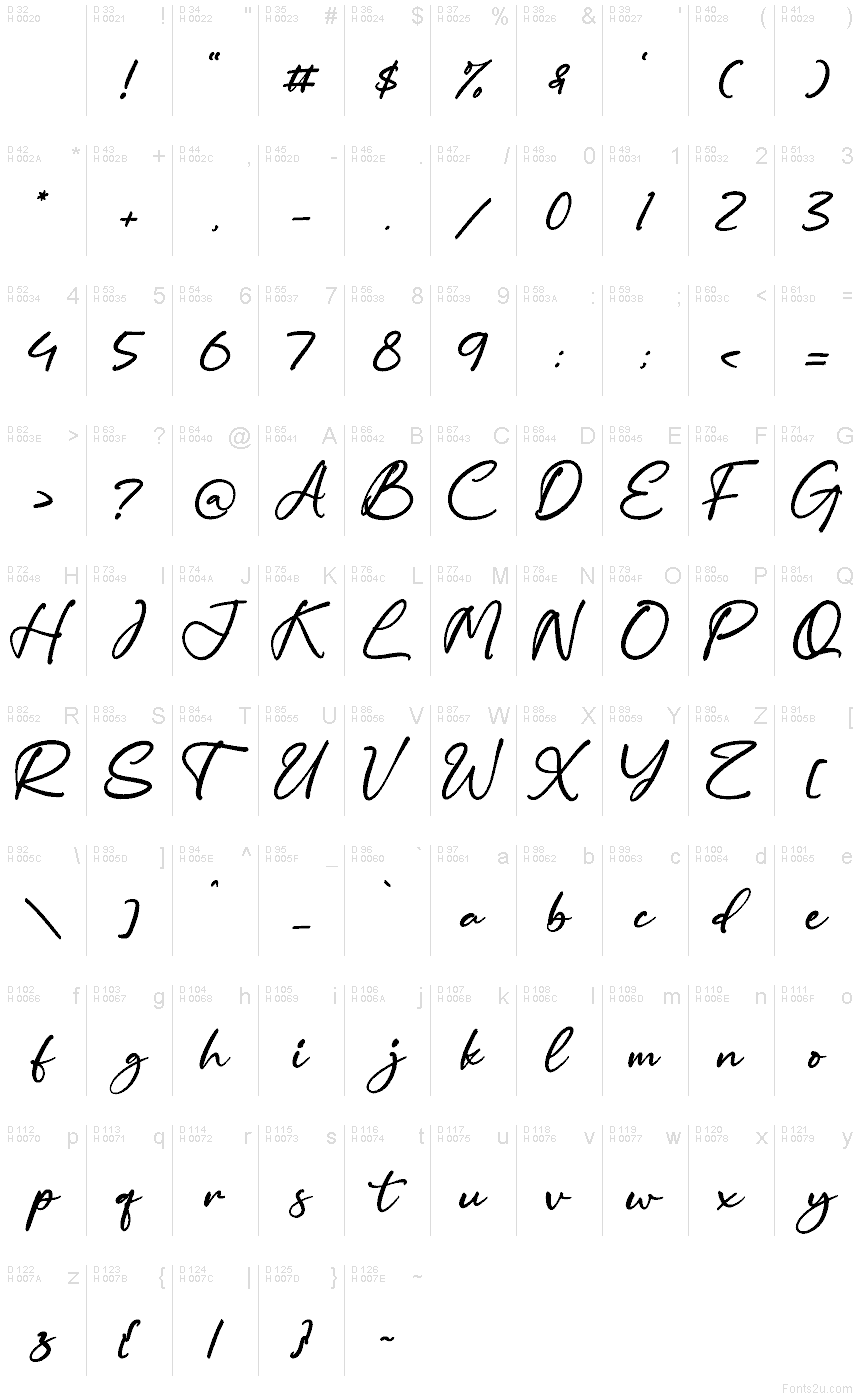
Carolena Narashy
Carolena Narashy font by Integritype Studio is a free handwritten font that combines a personalized and expressive style. This flowing typeface enhances contemporary design projects, allowing the natural beauty of each character to shine.